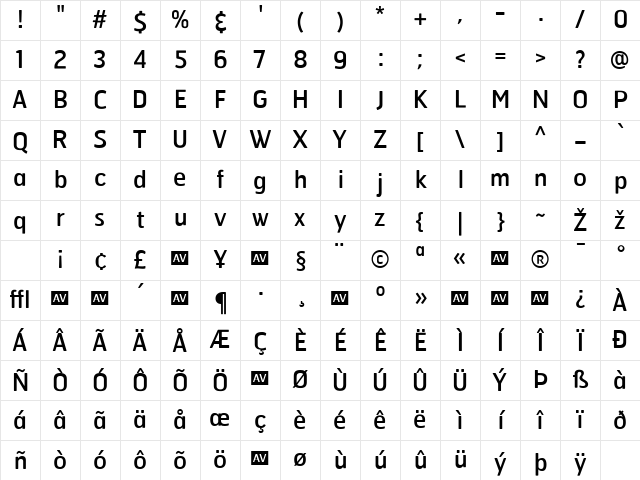
Hermes Regular
Foundry: Atomic Vision Inc
Design Context for Hermes
Hermes is a composed and adaptable typeface that performs quietly and consistently across a wide range of design contexts.